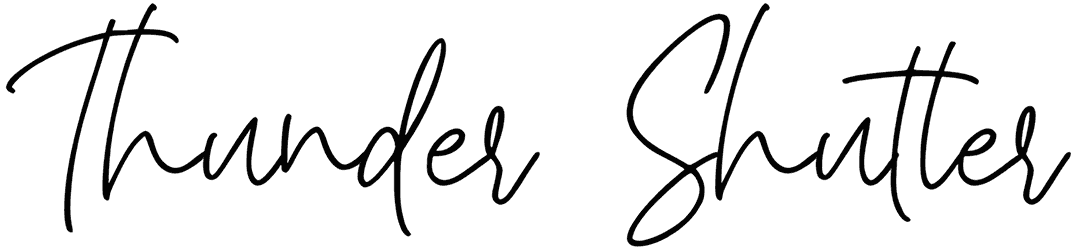
Thunder Shutter Font
If you are struggling financially to buy new fonts, Thunder Shutter can solve this problem. Because it is a powerful font in which human feelings wave in its letters.
As a result, it looks excellent for tattoos or old clothes and phone cases, and it can also be brilliant in small sizes for stickers. So if you need pure human emotion to communicate with your audience, keep this handwritten font in your collection.